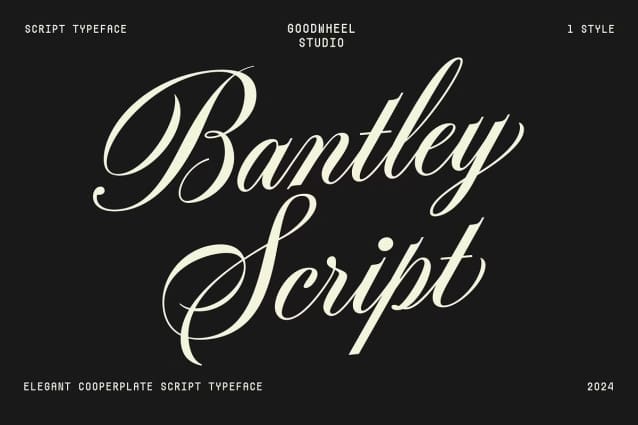
Bantley Script Font
Bantley Script Font, inspired by Copperplate script calligraphy, this font offers elegant swashes, refined stroke endings, and contextual alternates for “n,” “m,” and “x.” Perfect for logos, headlines, branding, and more.